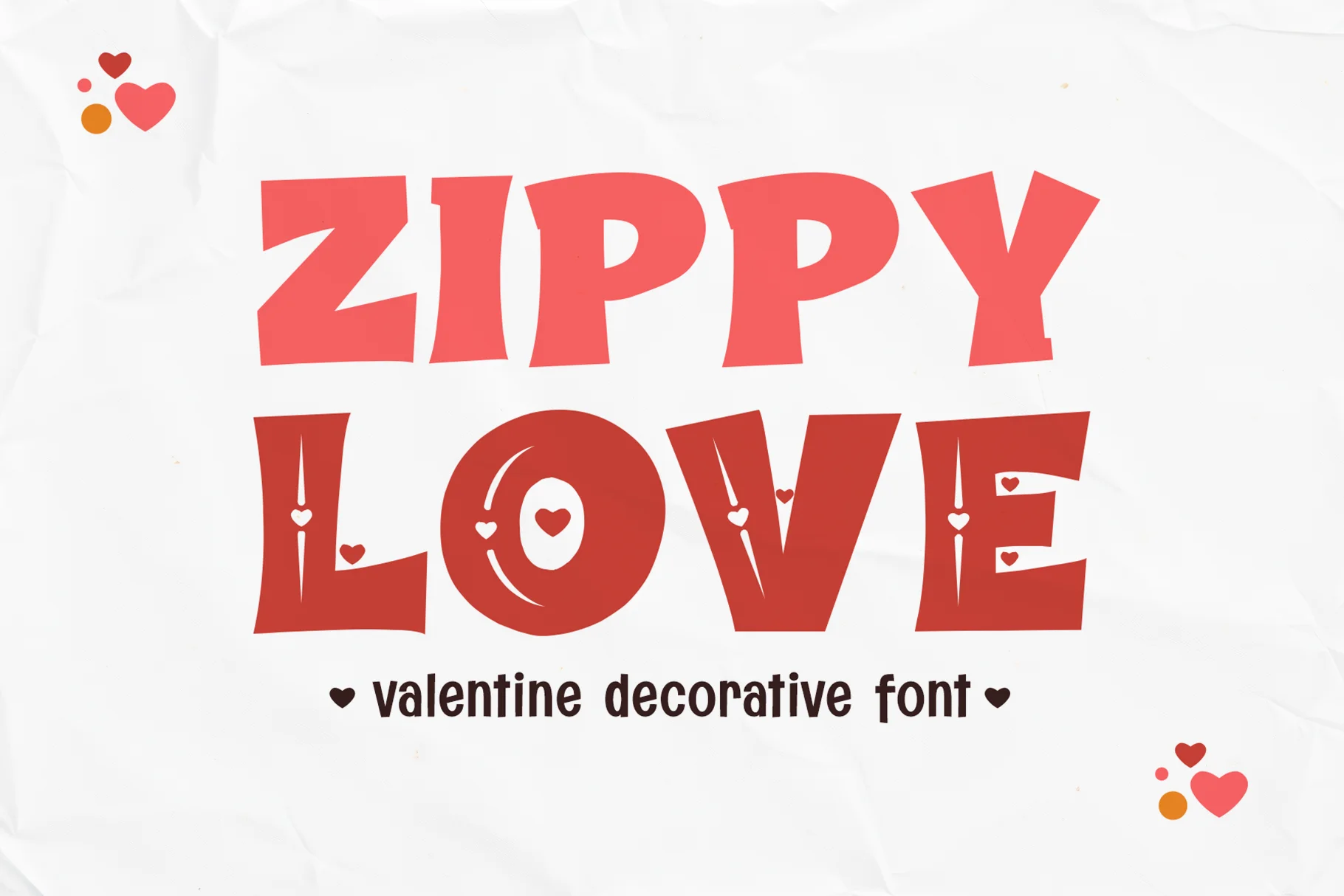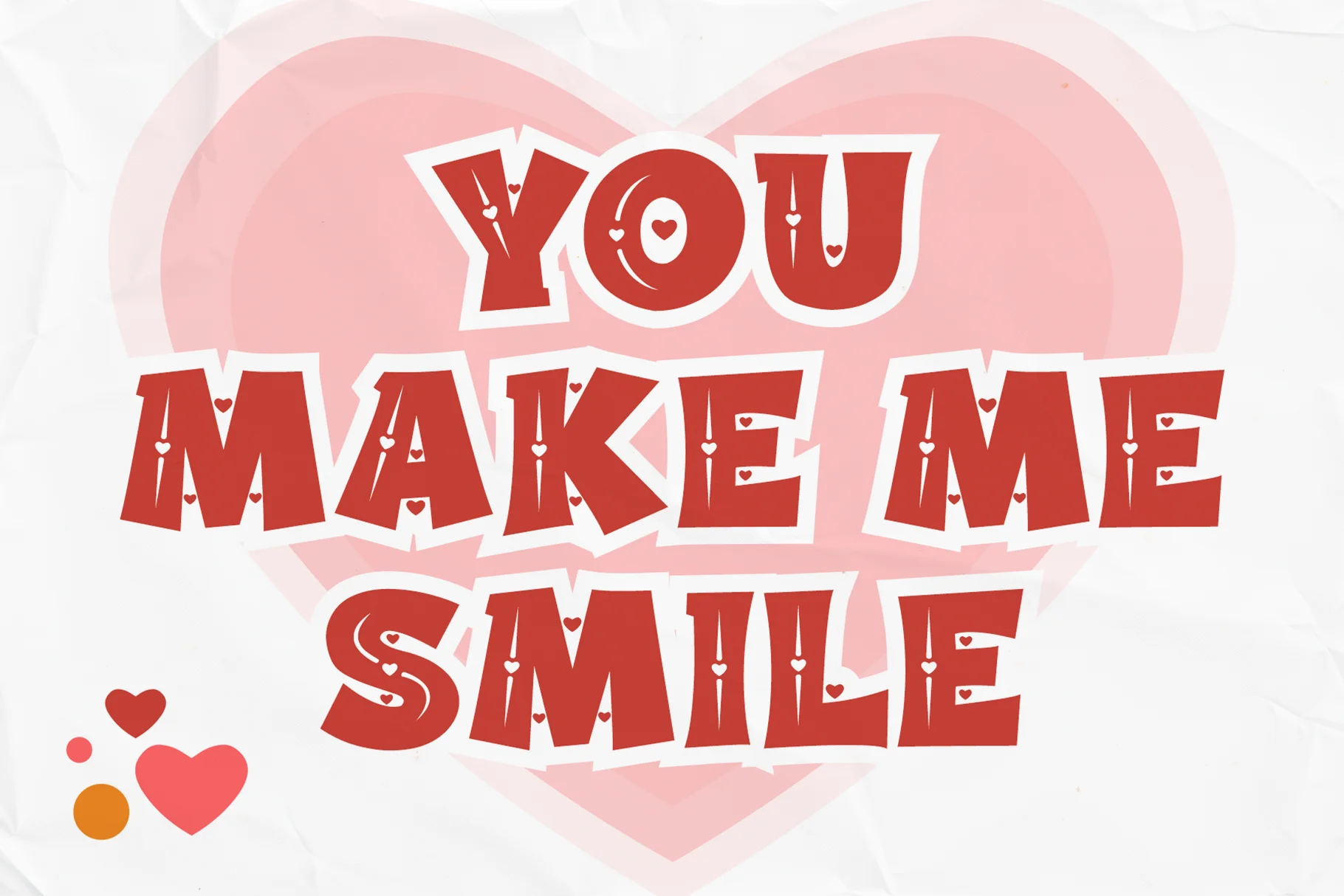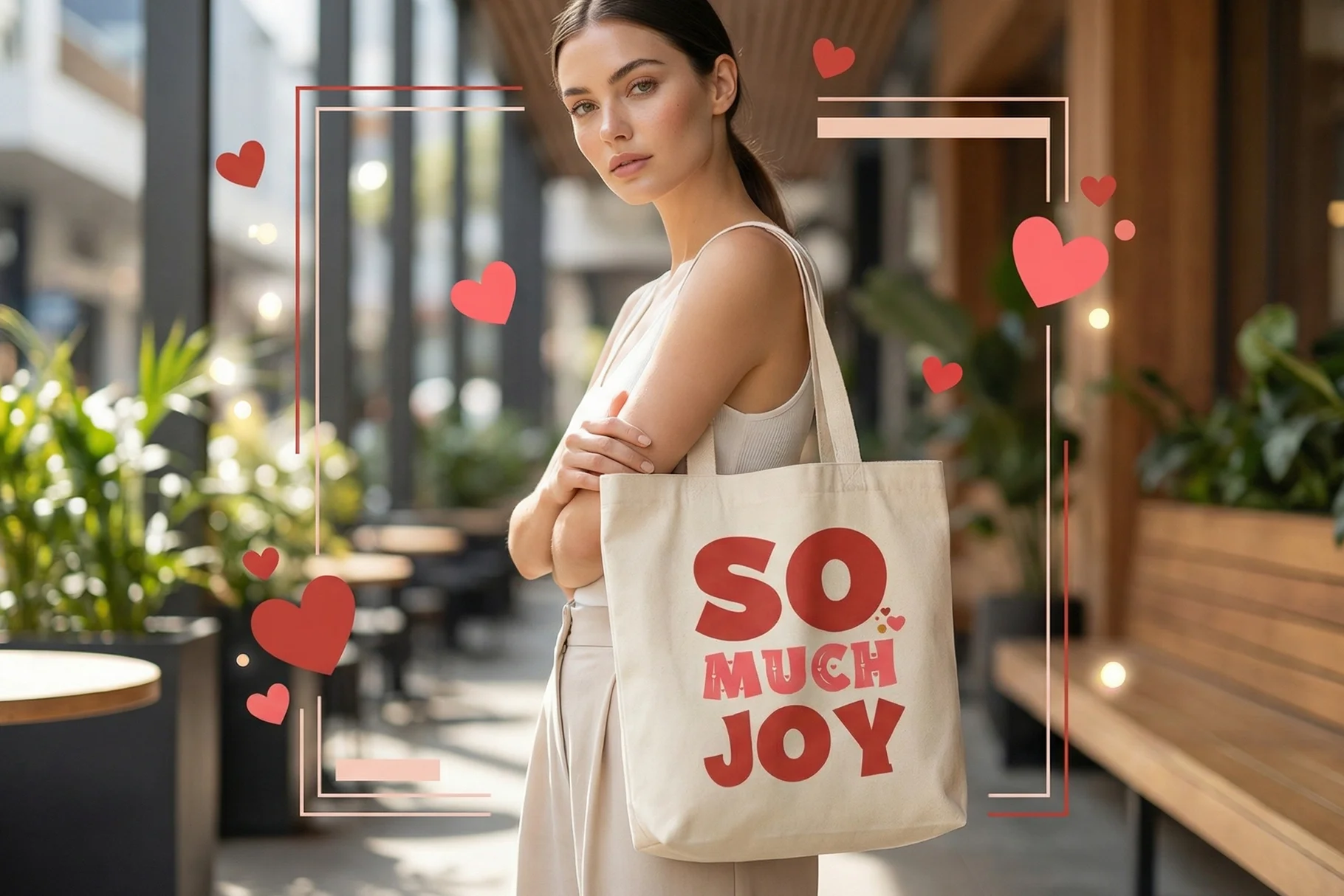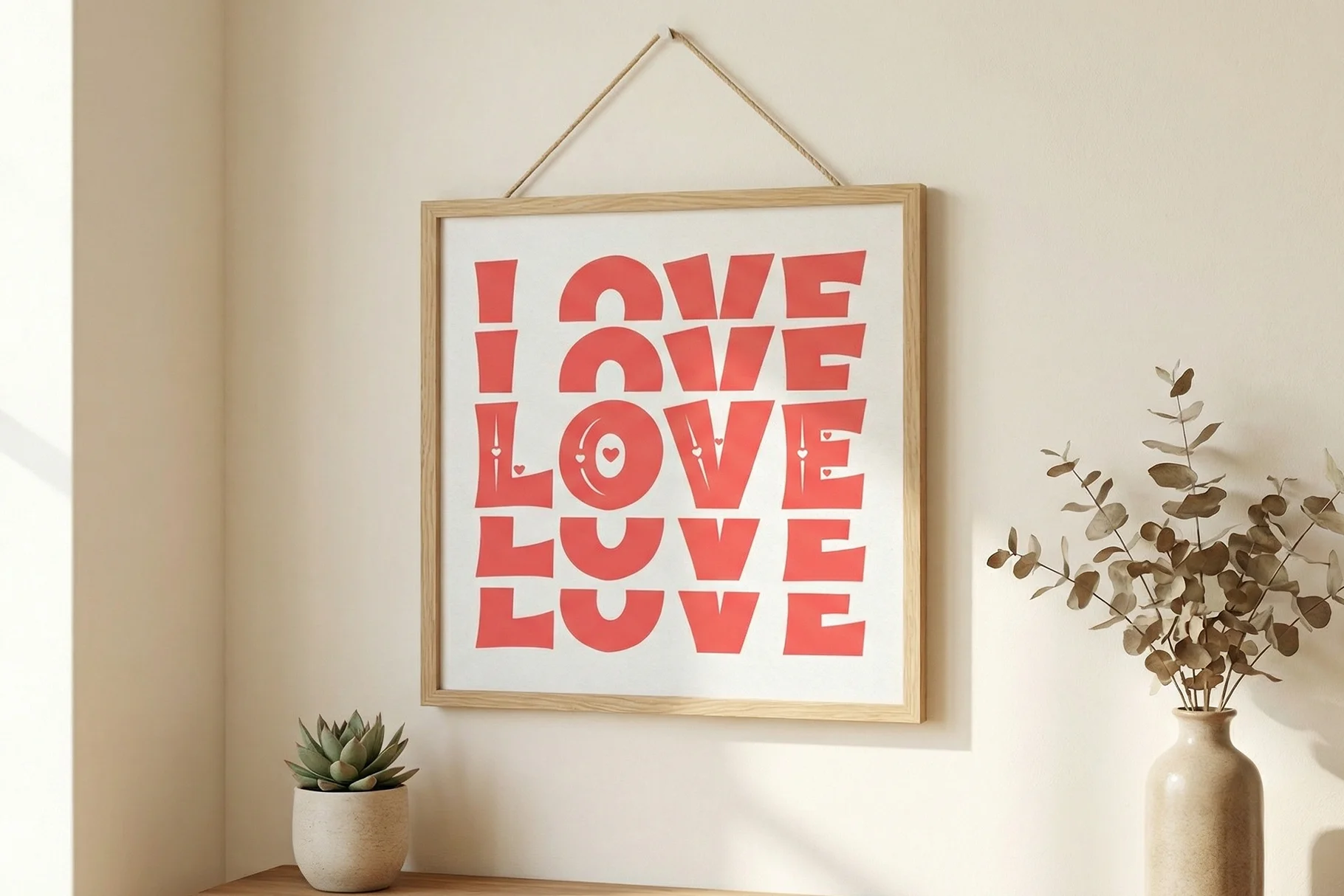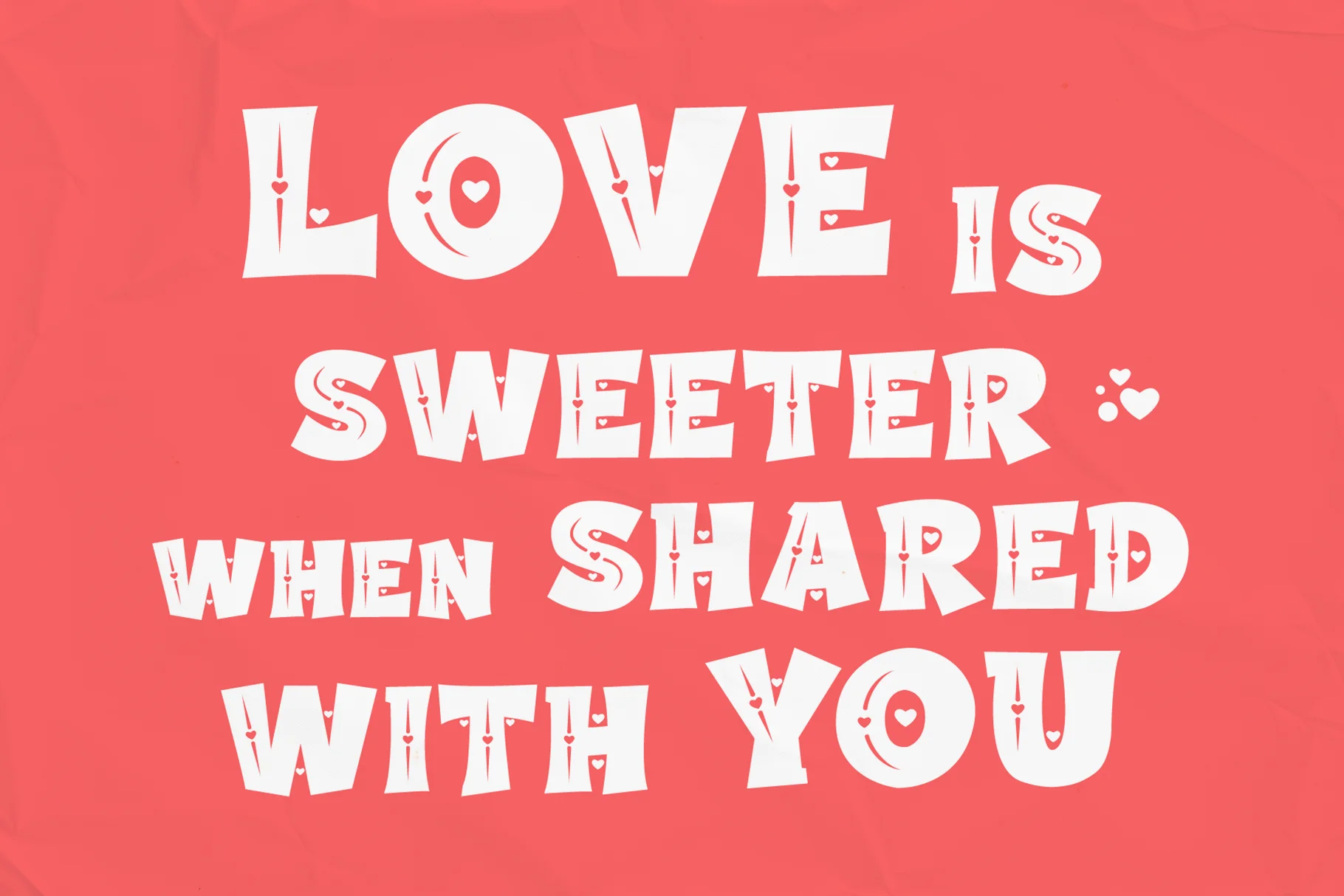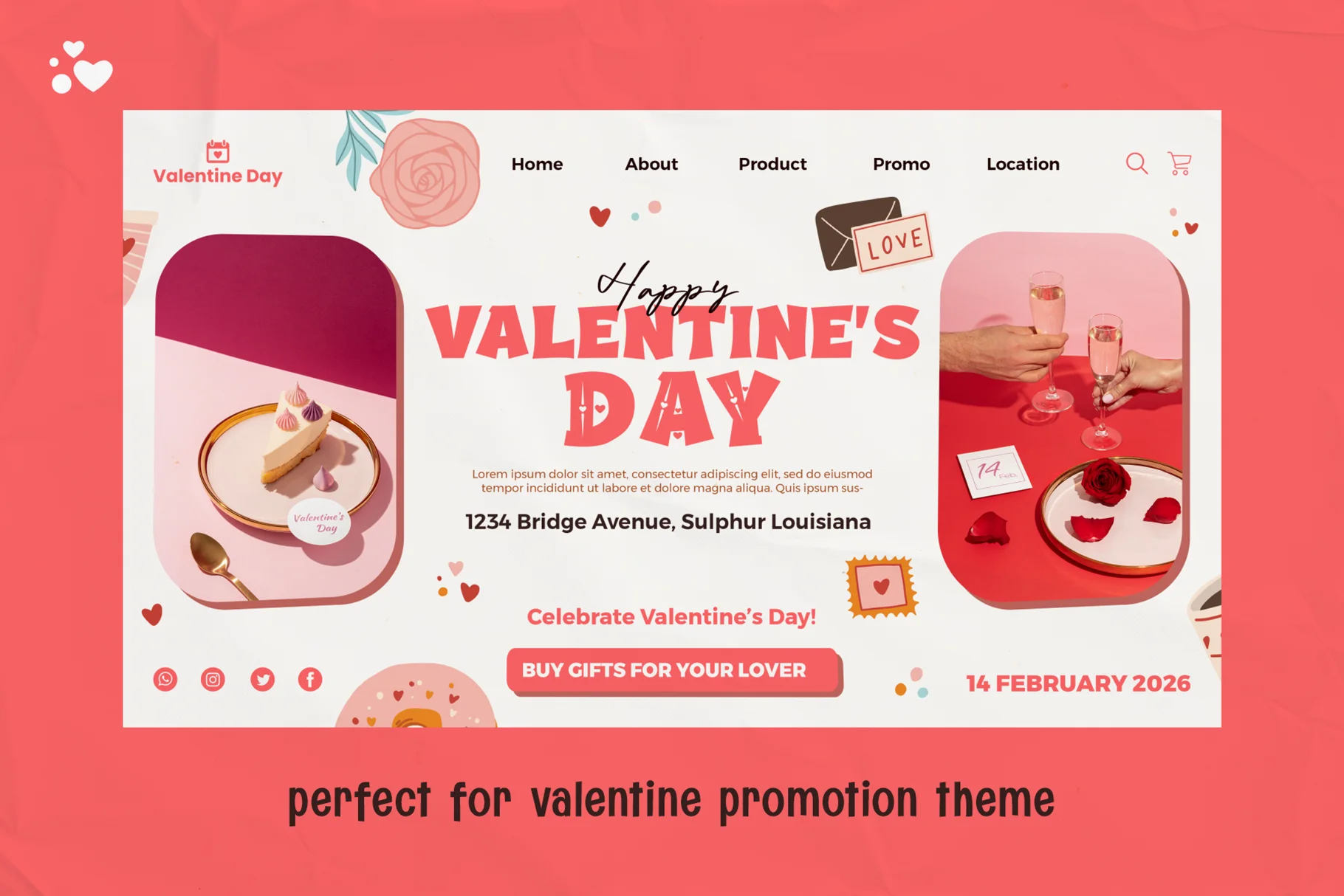
About Zippy Love
Zippy Love is a playful decorative Valentine display font with a bold, cheerful personality and a distinctly romantic character. Its chunky, slightly irregular letterforms give the typography a handmade feel, while decorative heart details add a charming visual accent that immediately connects the type to love, celebration, and affectionate themes.
Designed for expressive display typography, Zippy Love brings a lighthearted retro mood to headlines and short phrases. The strong shapes remain highly visible at larger sizes, making the font especially suitable for Valentine’s Day graphics, greeting cards, social media artwork, packaging, invitations, and cheerful seasonal designs.
Playful Valentine Display Character
Zippy Love combines bold display lettering with whimsical decorative details. The letterforms have a lively, slightly organic quality rather than a rigid geometric construction, giving compositions a friendly and handcrafted appearance. Its visual language works especially well when typography needs to communicate warmth, fun, romance, and celebration.
The decorative treatment adds personality without overwhelming the main letterforms. Used on its own, Zippy Love can create an immediate focal point; paired with simpler supporting type, it can also establish a clear hierarchy for titles, messages, and short promotional phrases.
All Caps, Numbers & Punctuation
Zippy Love includes all-caps lettering along with numbers and punctuation, allowing the typeface to handle more than simple alphabetic headlines. The uppercase construction makes it particularly effective for prominent words, names, short statements, and decorative typographic compositions.
Multilingual Support
Multilingual support expands the practical use of Zippy Love across projects that require broader language coverage. It can be used for romantic campaigns, seasonal graphics, invitations, and other Valentine-themed designs where expressive display typography needs to work across different languages.
Multiple Styles for Valentine Designs
The family includes Zippy Love and Zippy Love Decorative, providing two related approaches to the same playful Valentine aesthetic. The main style can establish bold display text, while the decorative version adds extra visual character for more expressive compositions.
Applications
- Valentine’s Day graphics and greeting cards
- Romantic invitations and event stationery
- Social media and seasonal campaigns
- Packaging and gift designs
- Merchandise and decorative artwork
- Decorative Valentine display style
- Playful and cheerful visual personality
- Bold, chunky letterforms
- All-caps lettering
- Numbers included
- Punctuation included
- Multilingual support
- Zippy Love main style
- Zippy Love Decorative style
- Romantic heart-inspired visual character
Why Designers Love Zippy Love
Zippy Love gives Valentine-themed typography a strong graphic presence while keeping the overall mood playful and approachable. Its irregular display forms help designs feel more personal and expressive, making the lettering useful as both a headline and a central decorative element.
The two styles make it easier to build hierarchy within a composition. Designers can use the main Zippy Love style for prominent messaging and bring in Zippy Love Decorative where additional visual detail is needed. This makes the family practical for coordinated seasonal graphics across cards, packaging, social content, and merchandise.
Make Every Message Feel More Lovable
Zippy Love brings bold decorative lettering, playful shapes, and a cheerful Valentine aesthetic into one expressive display font family. Its distinctive character is suited to designs that call for warmth and personality rather than formal or restrained typography.
Use Zippy Love for Valentine’s Day typography, romantic stationery, greeting cards, social media artwork, packaging, invitations, and festive merchandise where a fun decorative display font can become part of the visual message.